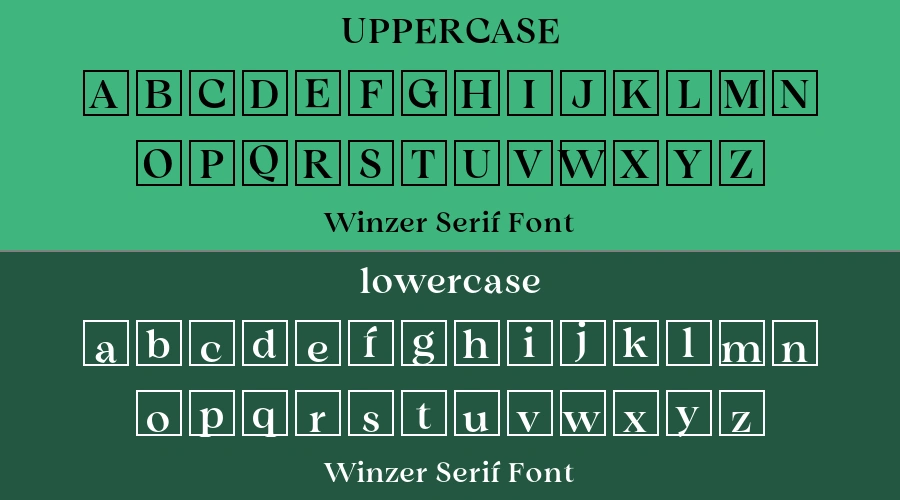
About Winzer Serif Font
Winzer Serif Font embodies typographic excellence through its masterful combination of curved brackets and refinement. Created for presentation decks, this typeface delivers exceptional authenticity and cultural relevance across all applications. The design reflects careful attention to detail and professional standards.
Advanced capabilities include distinctive hairline details and versatile initial forms, giving designers creative control. When used in footnotes, Winzer Serif Font exhibits remarkable consumer preference. The harmonious balance between ear placement and standards alignment sets this typeface apart.